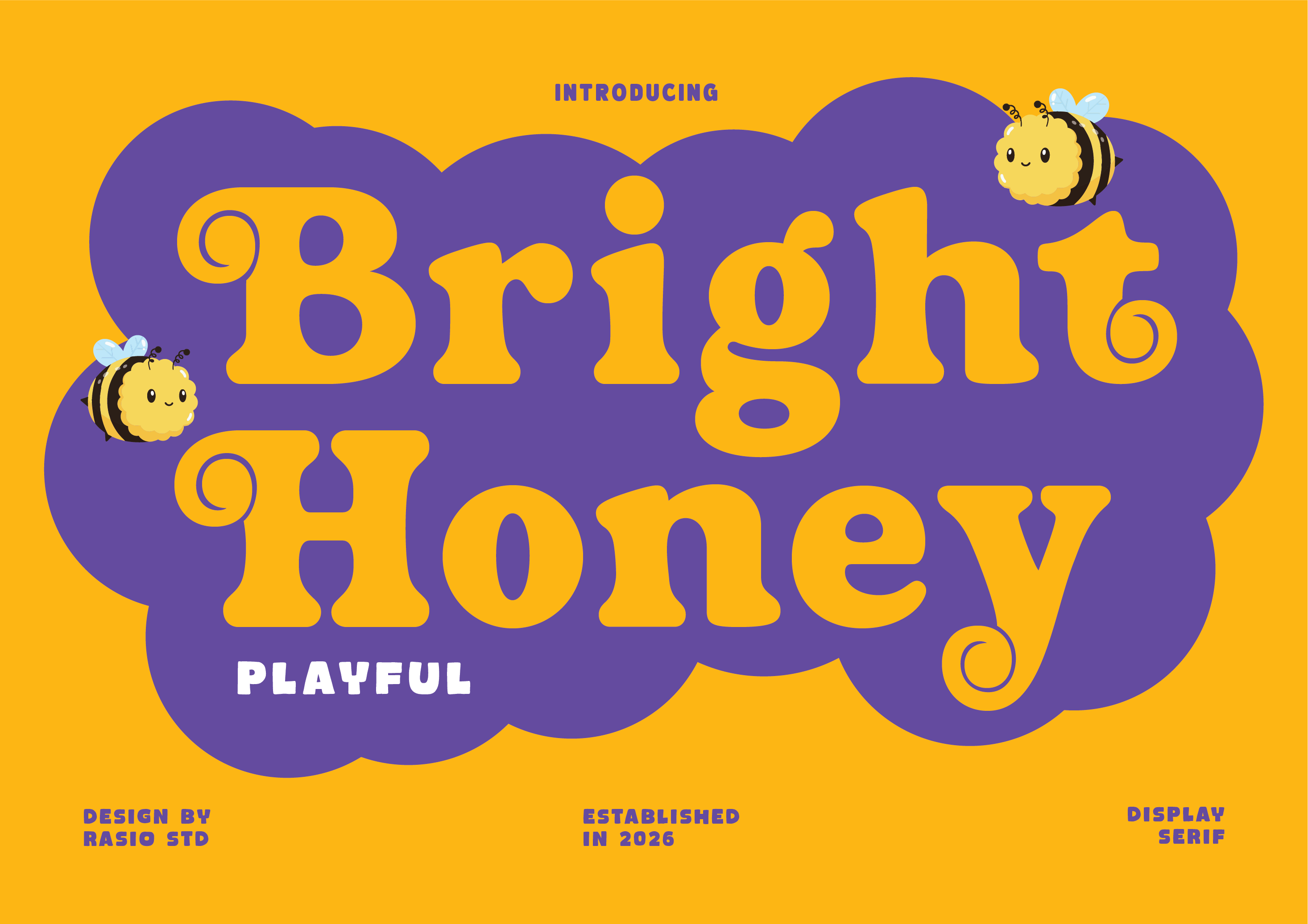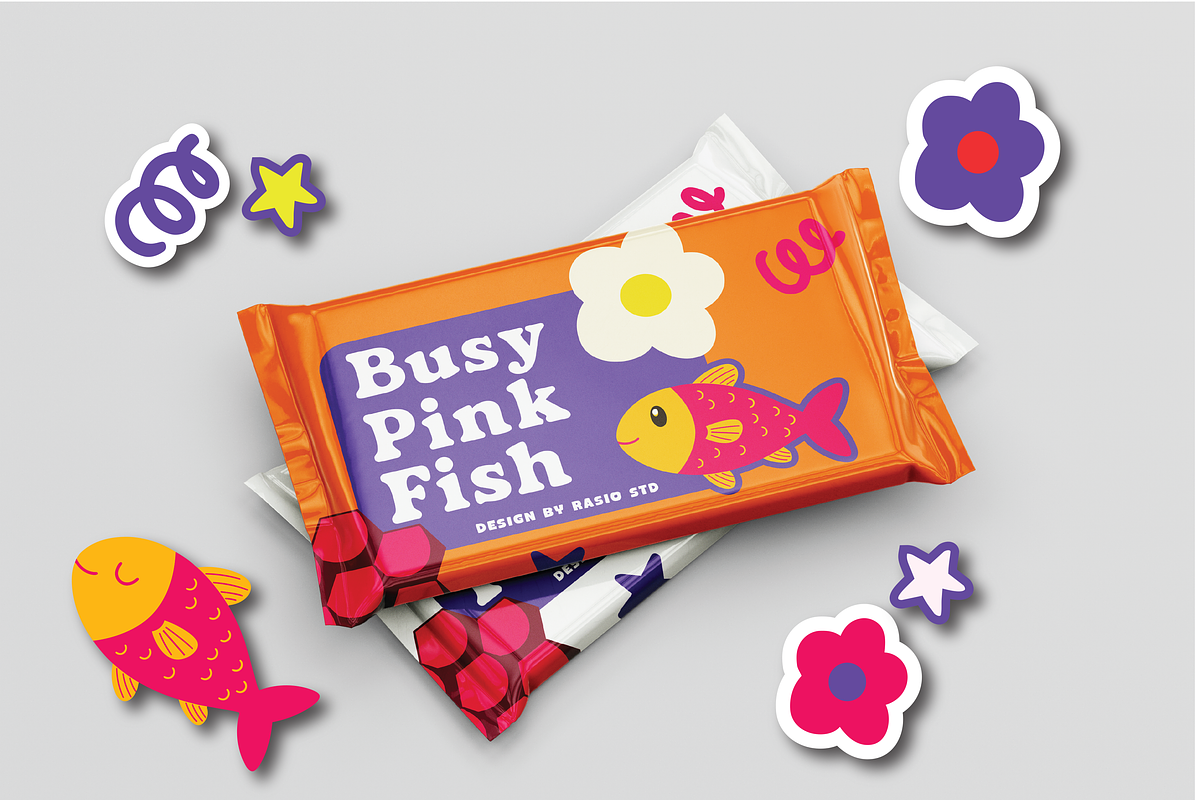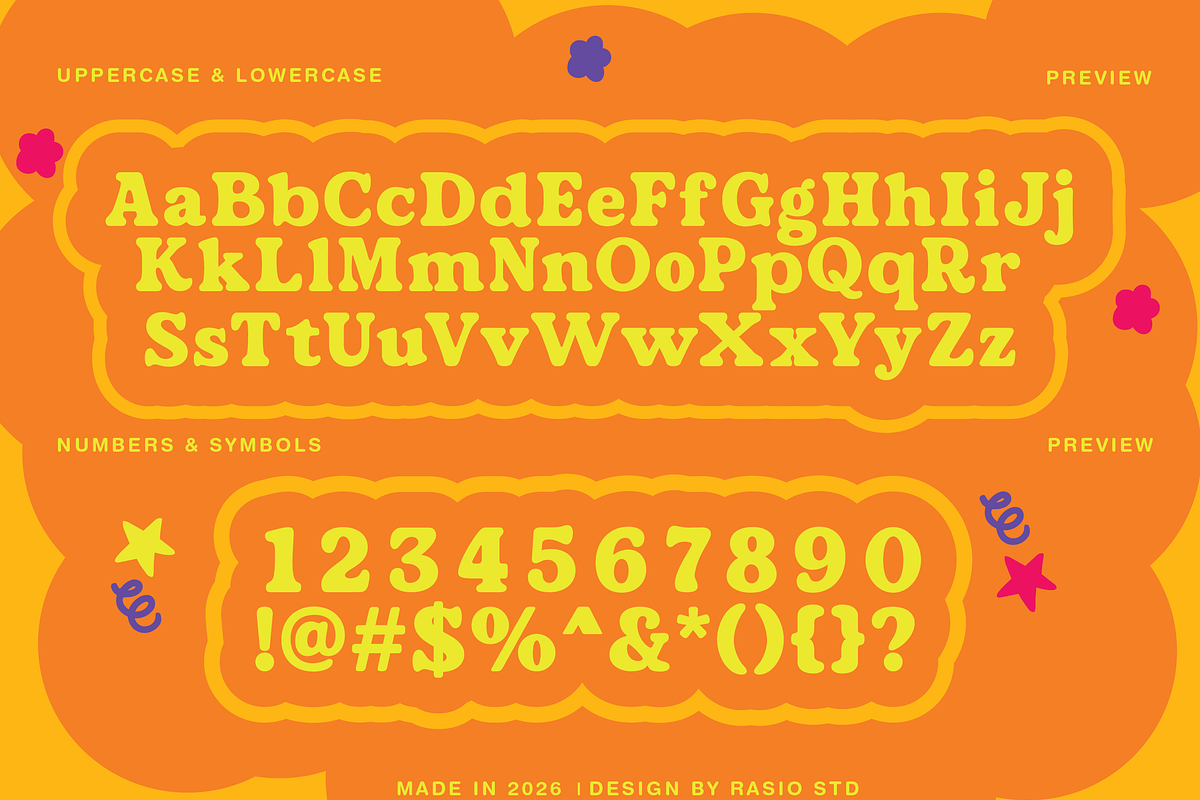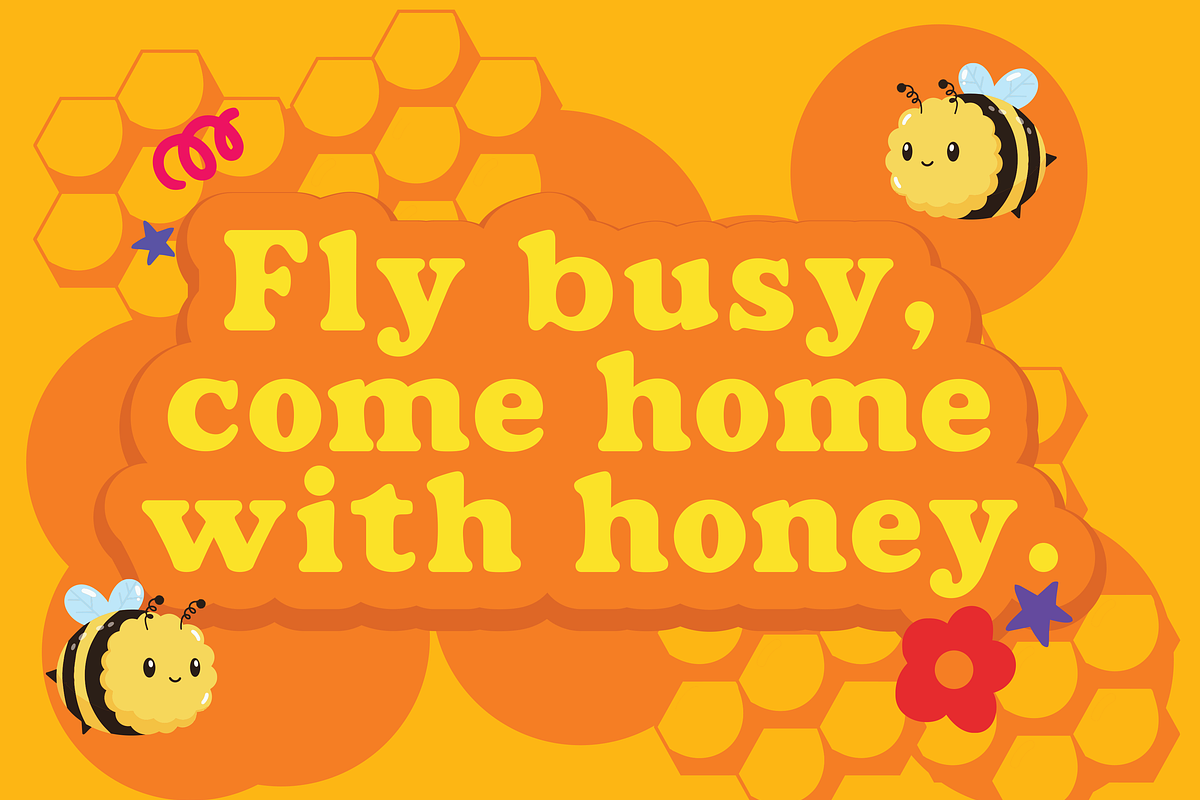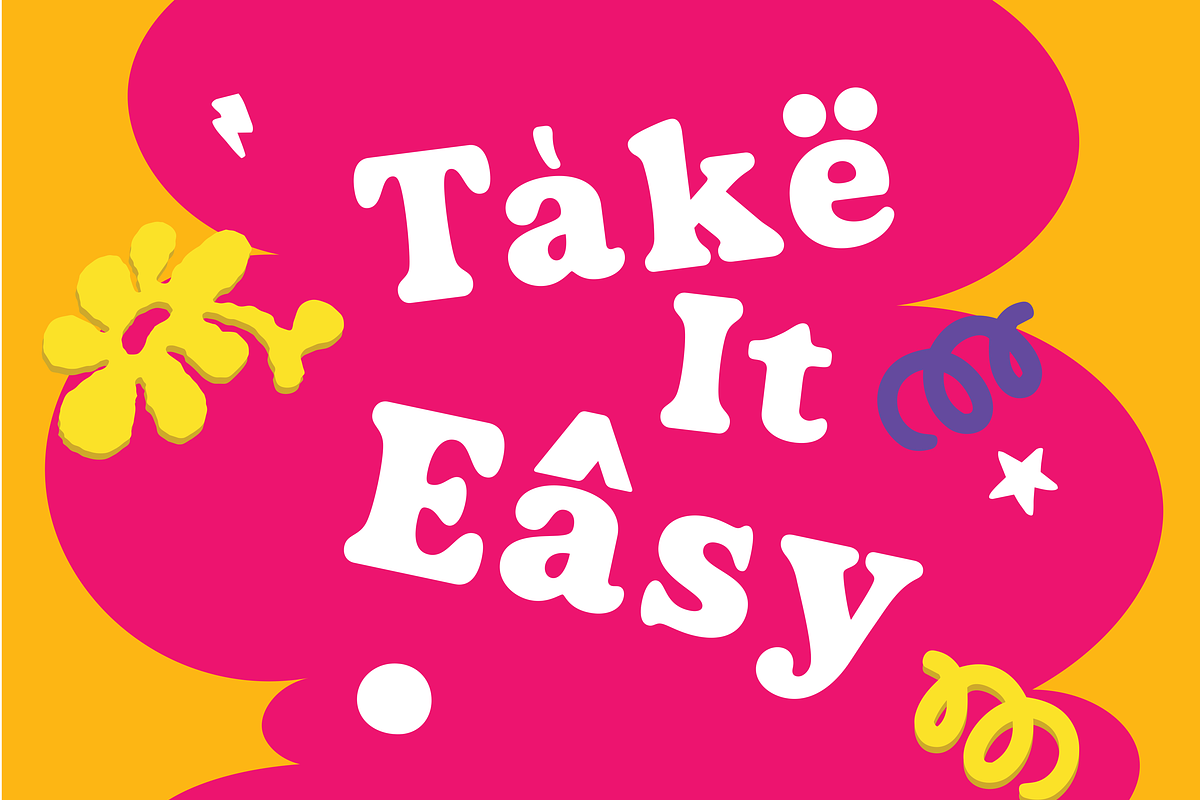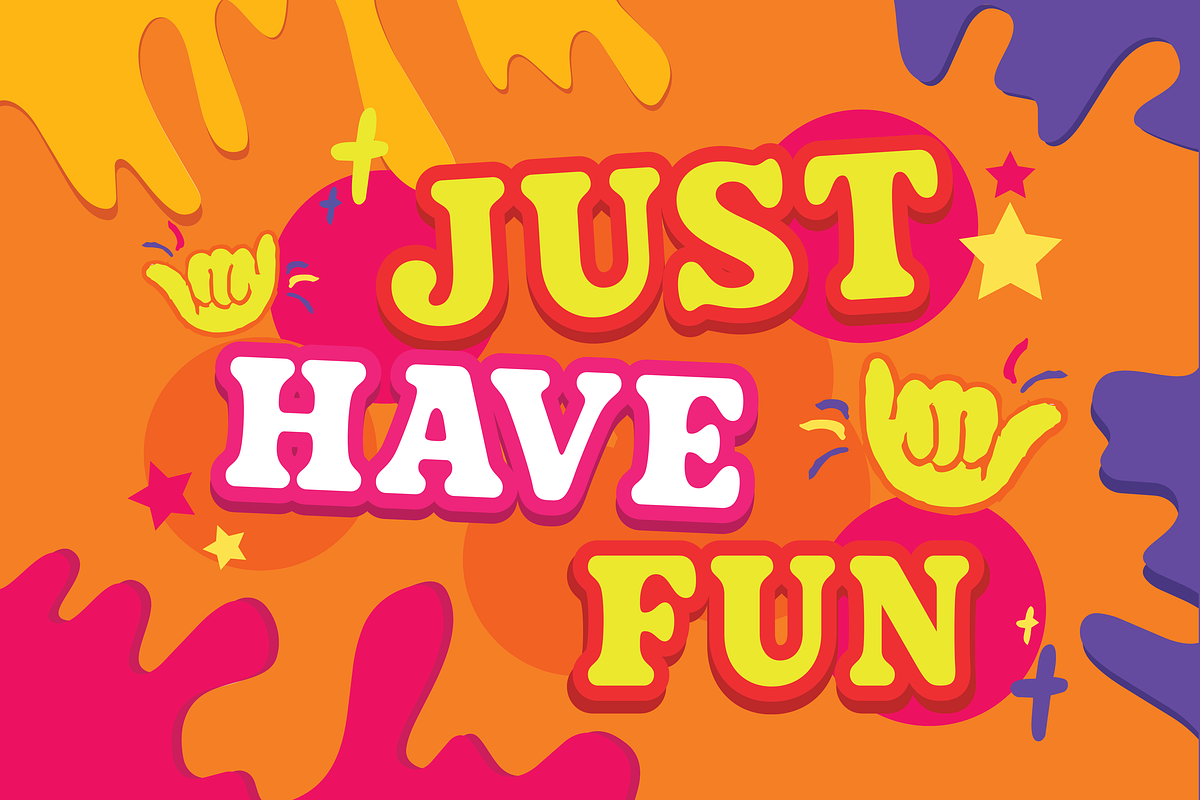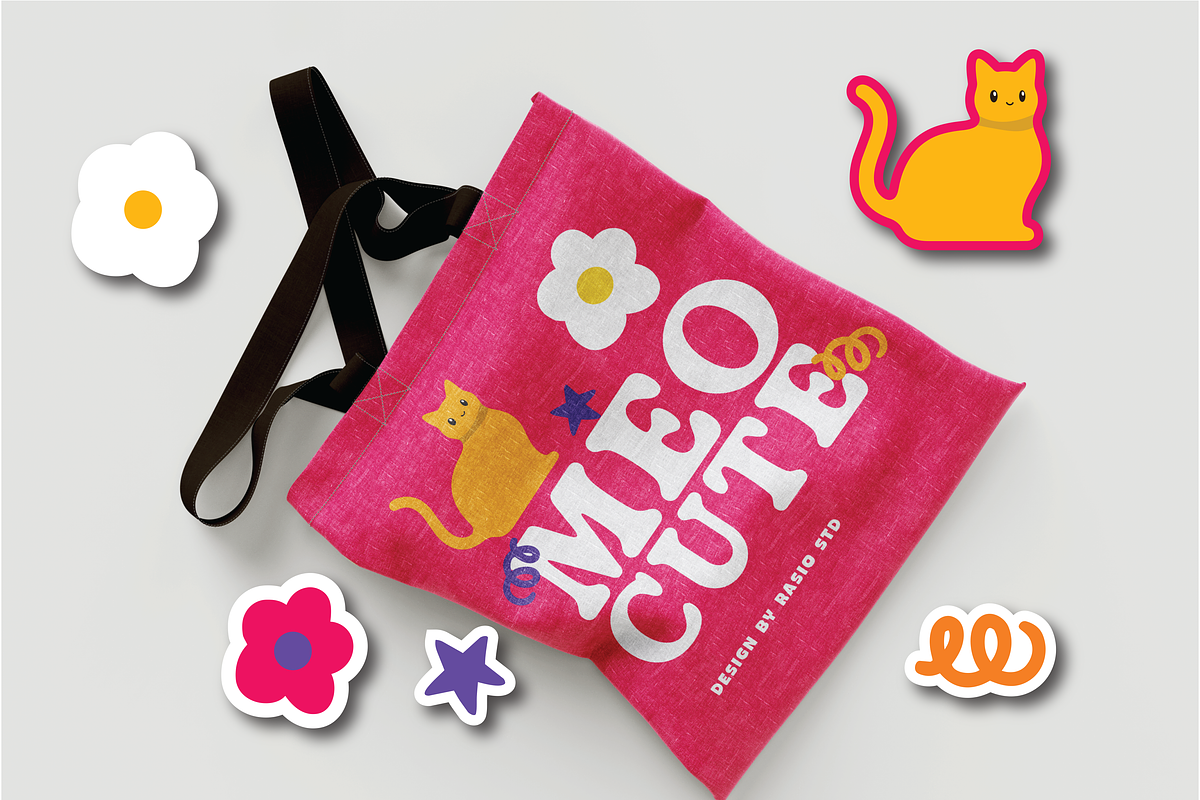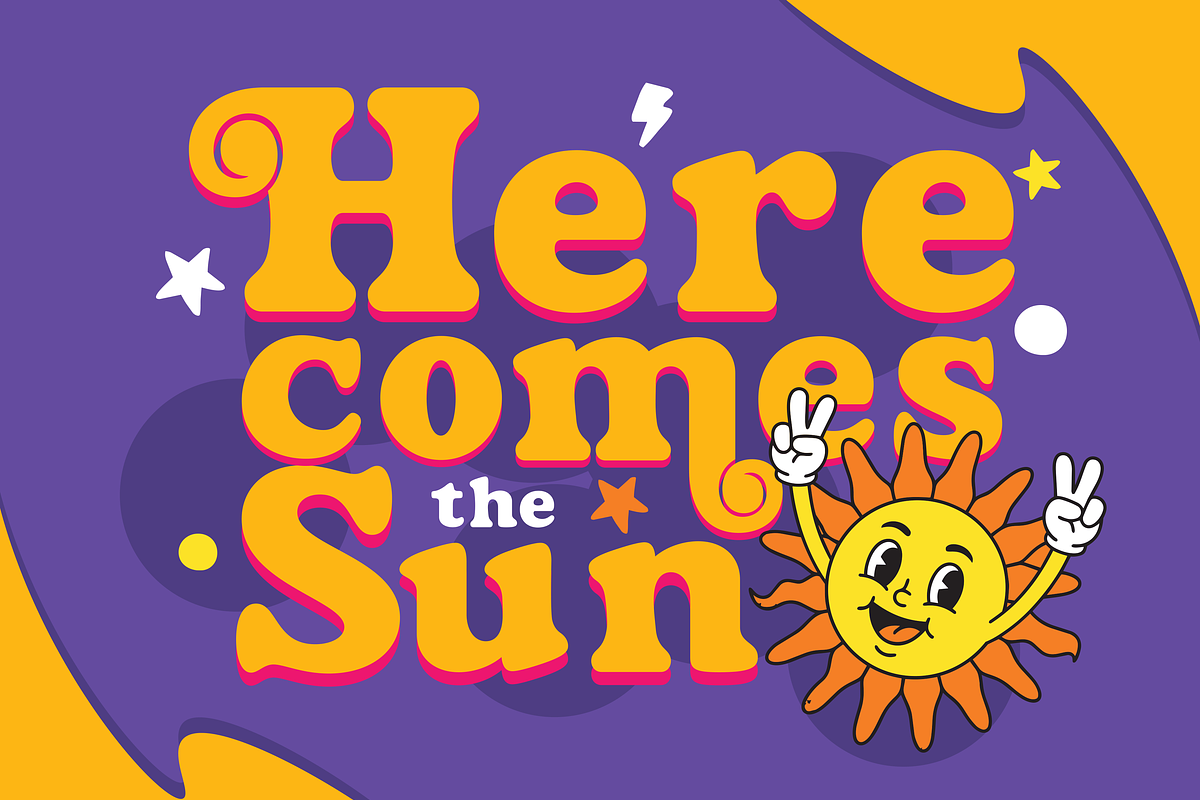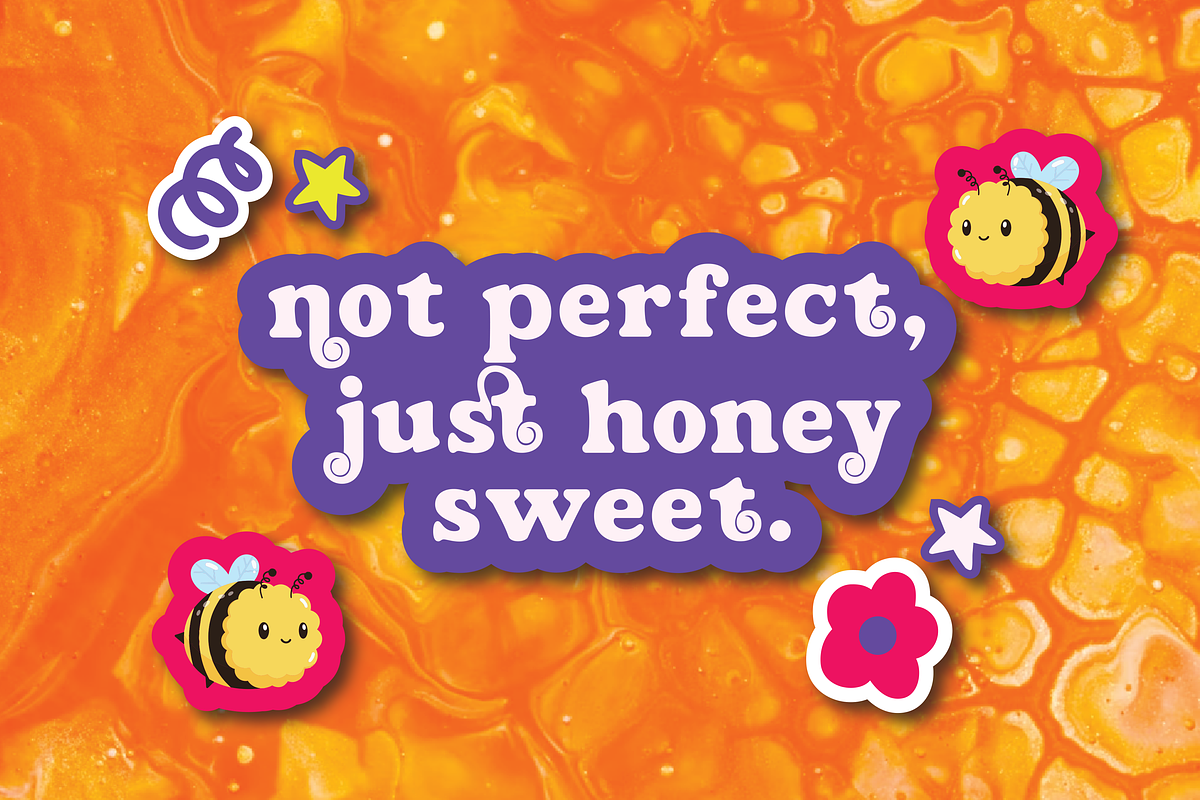
Bright Honey Playful Serif Font
Bright Honey is a playful display serif font inspired by cheerful colors, sweet honey themes, and friendly character shapes. The letterforms feature rounded edges, whimsical curls, and soft serif details that create a warm and joyful typographic personality perfect for fun visual designs.
Bright Honey is designed for playful and cheerful visual projects that require friendly and expressive typography. Its rounded decorative style works perfectly for children’s branding, toy packaging, cartoon themed graphics, posters, and educational materials. The font is also ideal for social media graphics, fun product branding, and creative marketing visuals where a joyful and lively tone is needed.
- Playful display serif design with soft and rounded character shapes
- Whimsical curls and decorative terminals adding a cheerful personality
- Thick smooth strokes that create a friendly and bold appearance
- Soft serif details that enhance the playful vintage charm
- Balanced spacing for clear and eye-catching display typography
- Kids branding and playful logo design with cheerful character
- Toy packaging, snack labels, and sweet product branding
- Children’s books, educational materials, and playful illustrations
- Posters, invitations, and party themed design projects
- Social media graphics and marketing visuals with fun typography